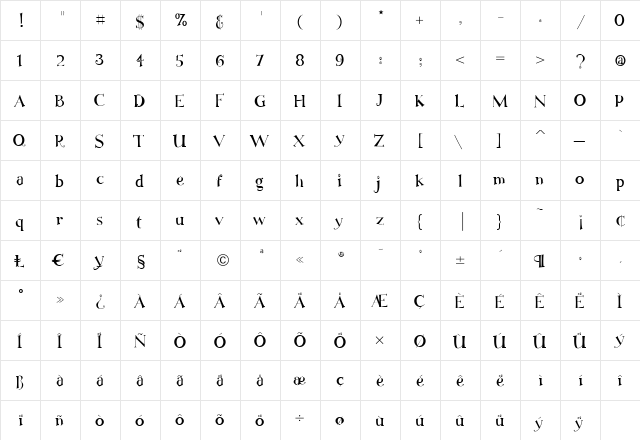
FiddlestixSolid Regular Font Preview
FiddlestixSolid Regular
FiddlestixSolid Regular Font Details
Design Context for FiddlestixSolid Typeface
FiddlestixSolid takes a measured approach to typography — its balanced proportions and neutral character make it a reliable workhorse for both digital and print work.